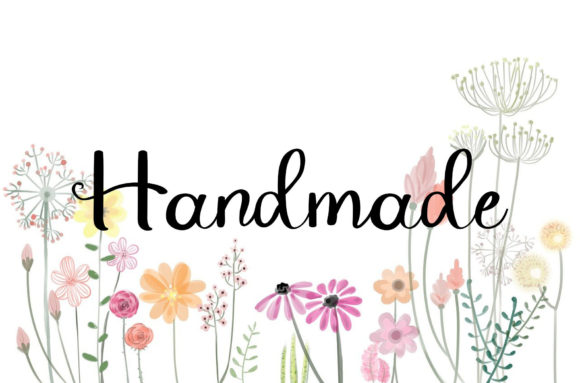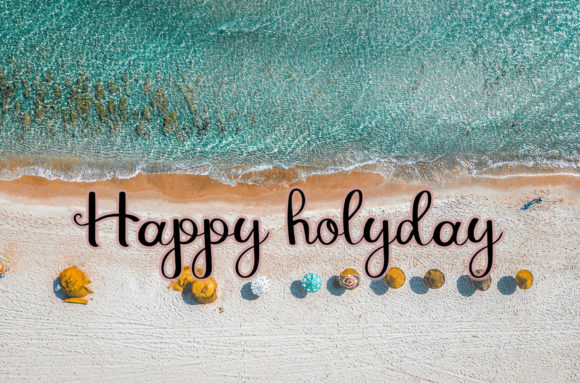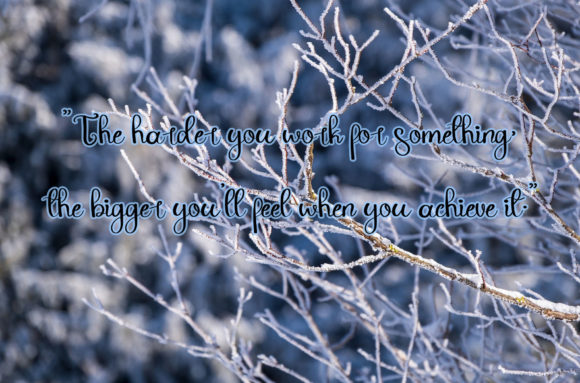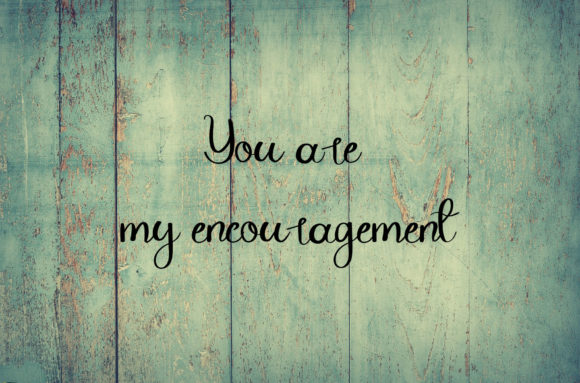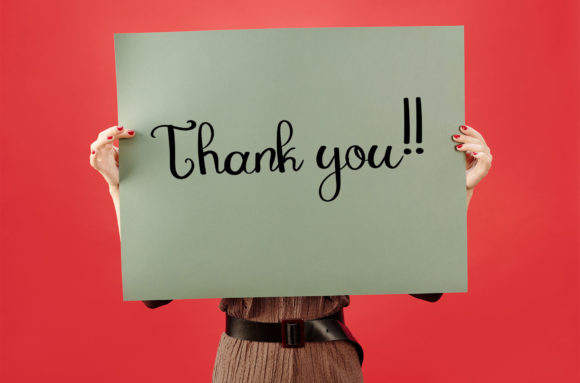
Handmade is a flowing handwritten font, delicately designed to become a top-choice. It maintains its classy calligraphic influences while feeling contemporary and fresh.